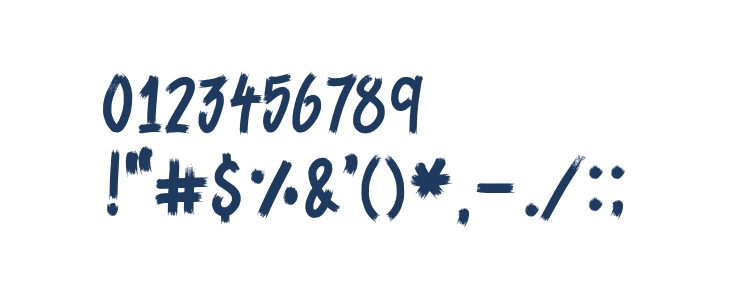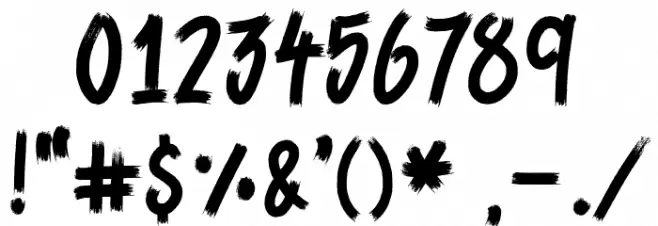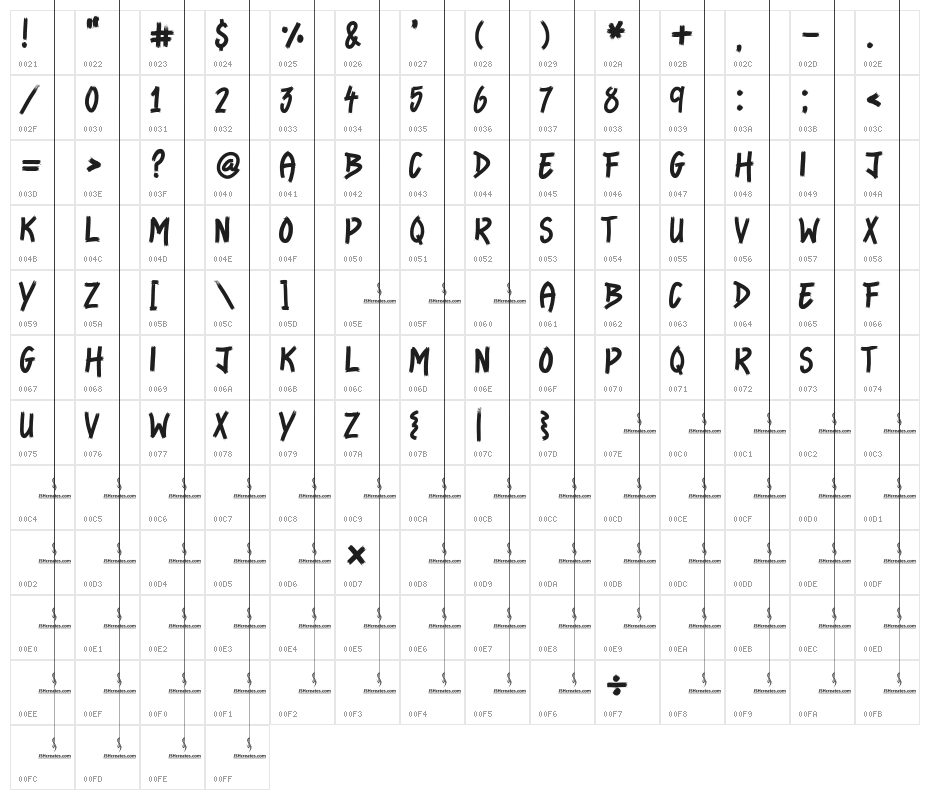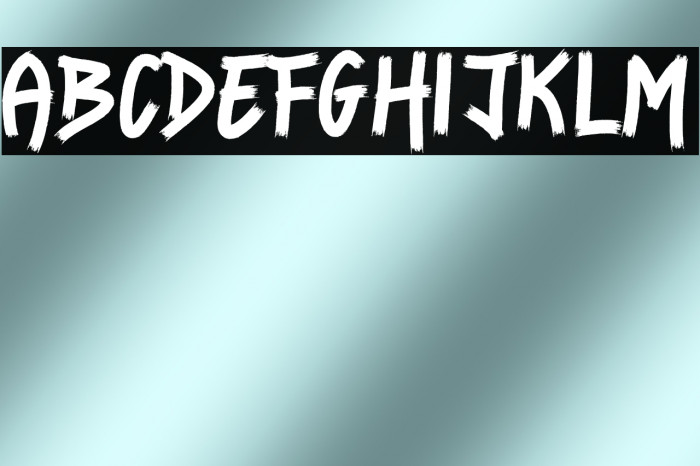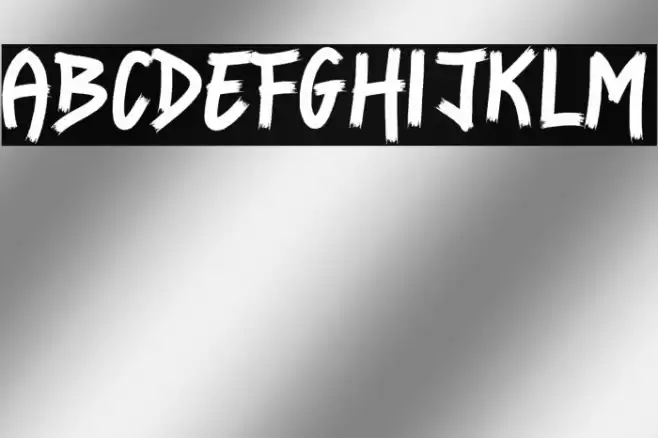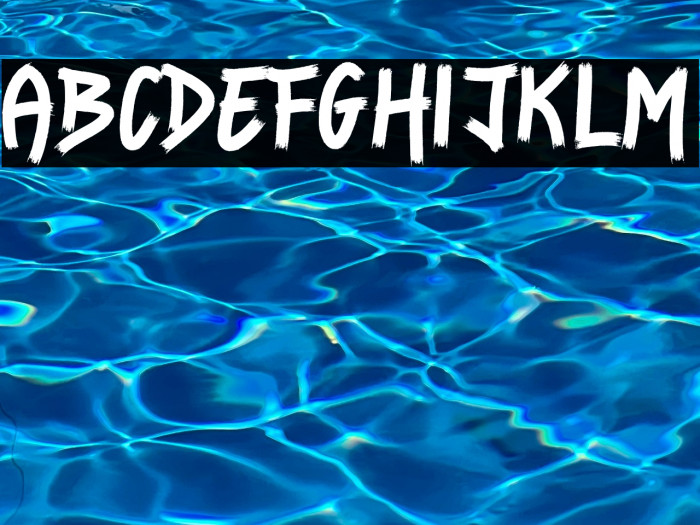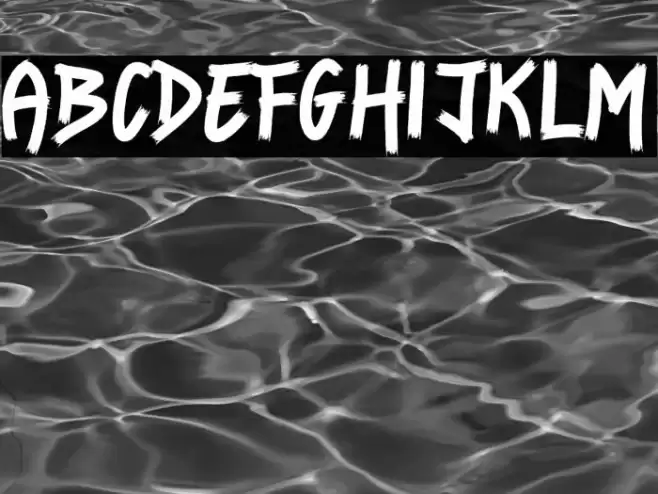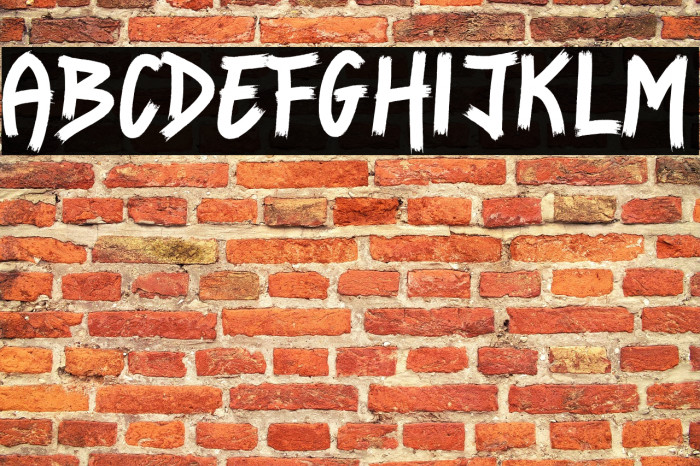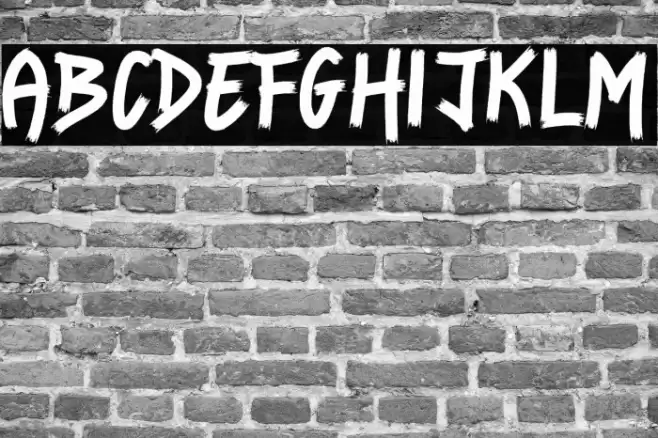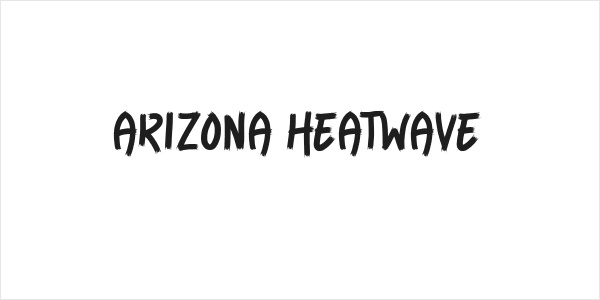
Arizona Heatwave Font
Arizona Heatwave Description
This font exudes a bold, energetic vibe with its brush-like strokes and dynamic angles. The letters are crafted with a hand-painted style, giving them a raw and expressive appearance. The uppercase and lowercase characters maintain a consistent style, with sharp edges and varying stroke widths that add to the font's lively nature. The numbers and special characters follow the same aesthetic, ensuring a cohesive look across all elements. Its unique style makes it stand out, perfect for projects that require a touch of creativity and flair.
| Proposed Projects | Ideal for posters, album covers, branding, and any creative projects that require a bold statement. |